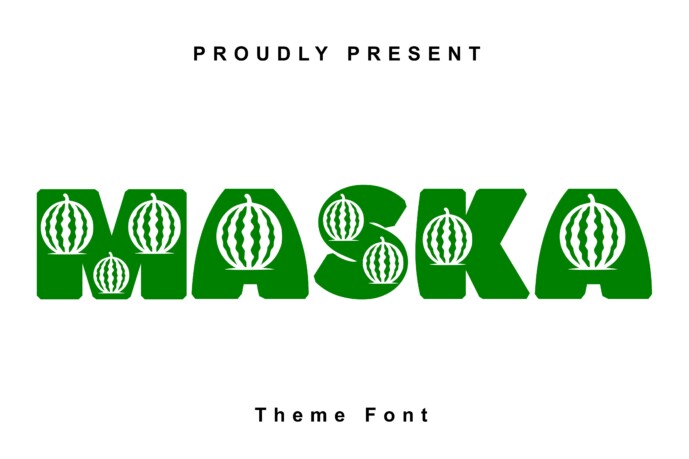
Maska Font
Designer: Infontree
Immerse yourself in the captivating allure of Maska, a magical typeface that encapsulates the joy and enchantment of childhood. Drawn from the wellspring of youthful fascination, Maska artfully combines dynamic glyphs and spirited alphabets, transforming commonplace characters into an extraordinary visual spectacle.
Maska is a distinct illustration of imagination meeting skill, serving as the ideal companion for various artistic ventures, from compelling educational materials and charming children’s books, to vibrant brand projects seeking a sprinkle of whimsy and joyfulness. Experience the hypnotizing allure of simplicity with Maska, infusing an invigorating vibrance into designs aimed at igniting delight and anticipation.